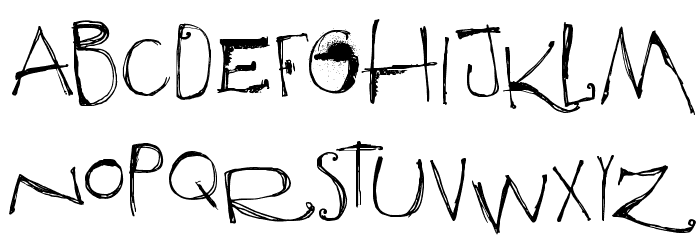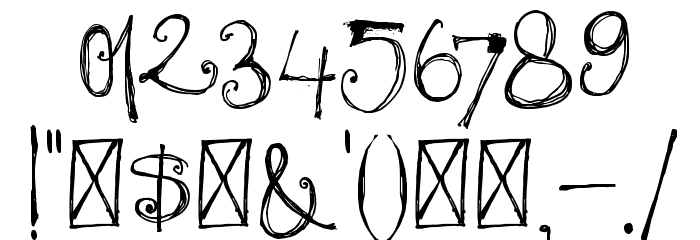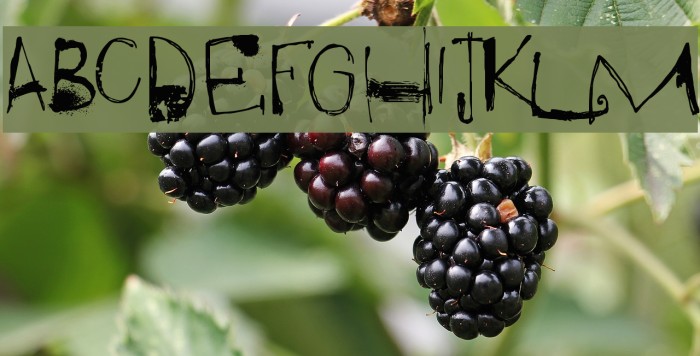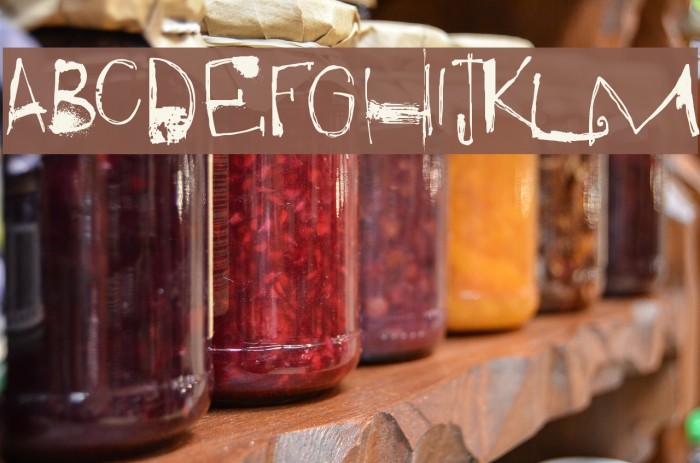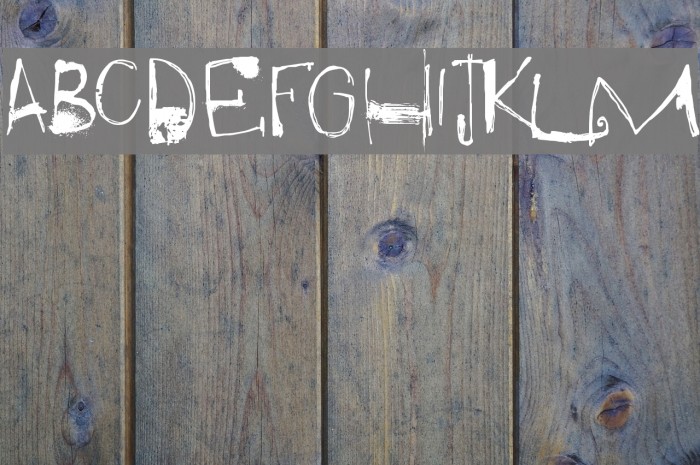
DKQilin Font
This font features a highly decorative and artistic style, characterized by its rough, textured appearance and unique, hand-drawn elements. Each letter exhibits a distinct personality, with varying stroke weights and whimsical flourishes that give it a dynamic and expressive feel. The uppercase and lowercase letters maintain a consistent theme, while numbers and special characters add to the font's eclectic charm. This font's irregularities and artistic flair make it stand out, offering a creative and unconventional aesthetic.
A decorative, hand-drawn font with textured, artistic elements.
- Font: DKQilin
- Proposed Projects: Ideal for creative projects such as posters, album covers, artistic branding, and unique invitations.
- Overall Style: Artistic, Expressive, Whimsical
- Use Case: Headlines, Artistic projects, Branding